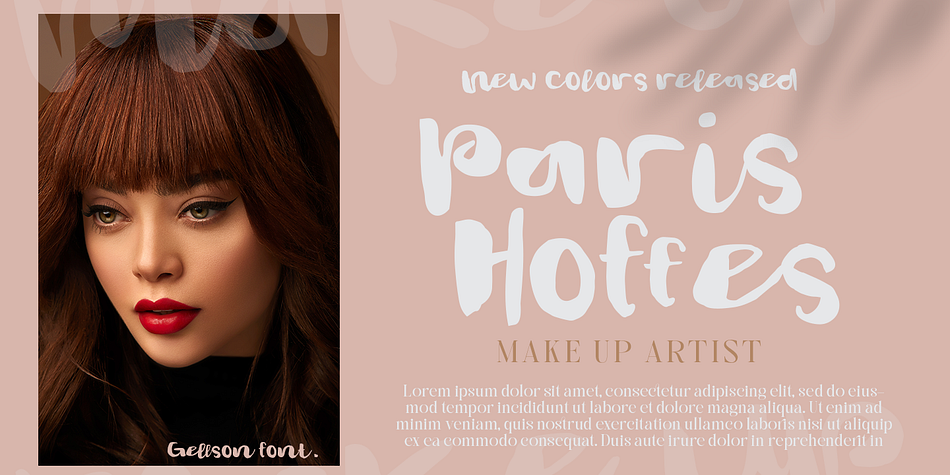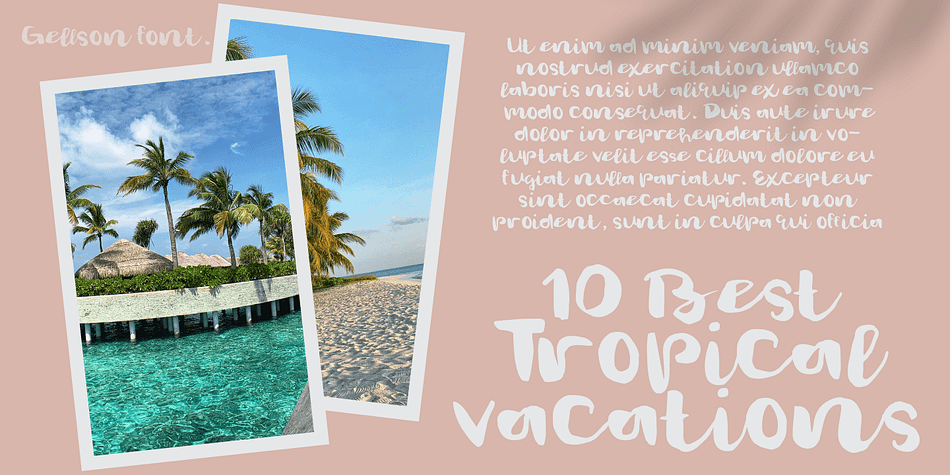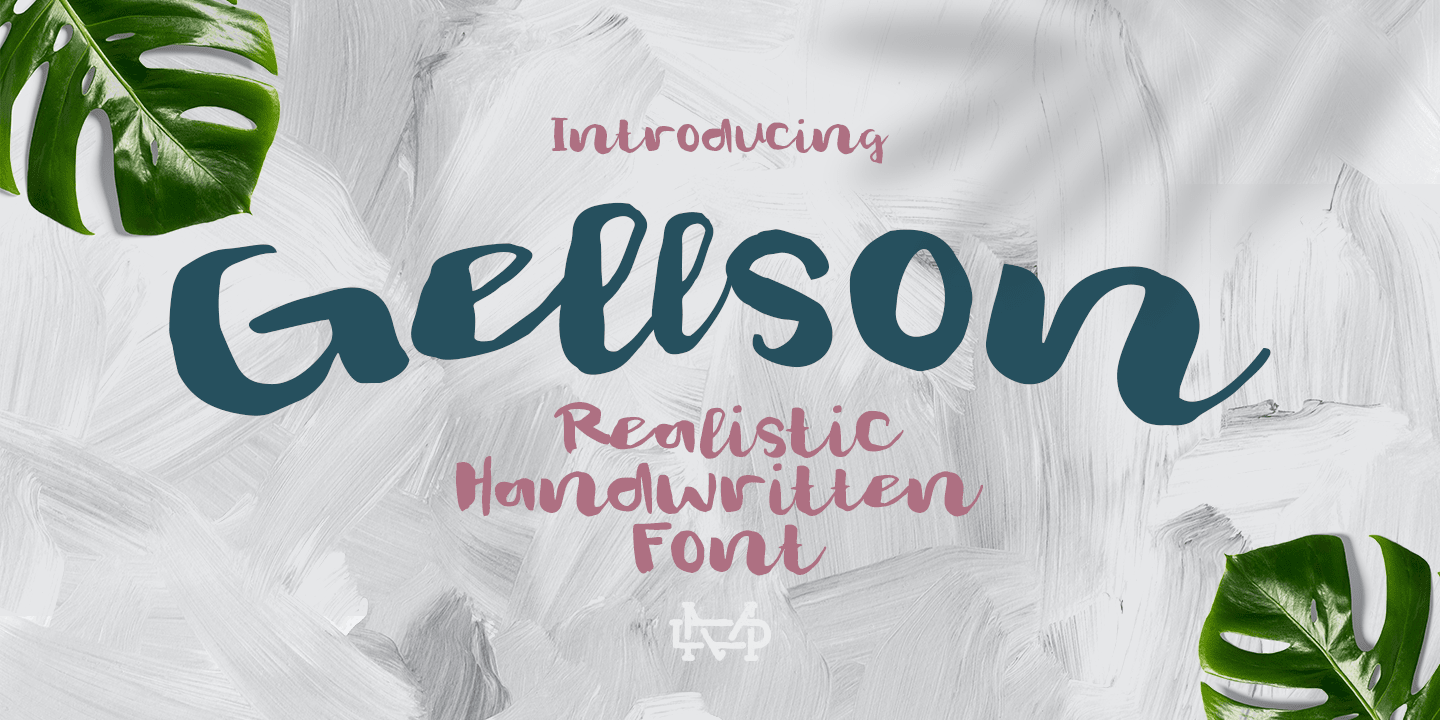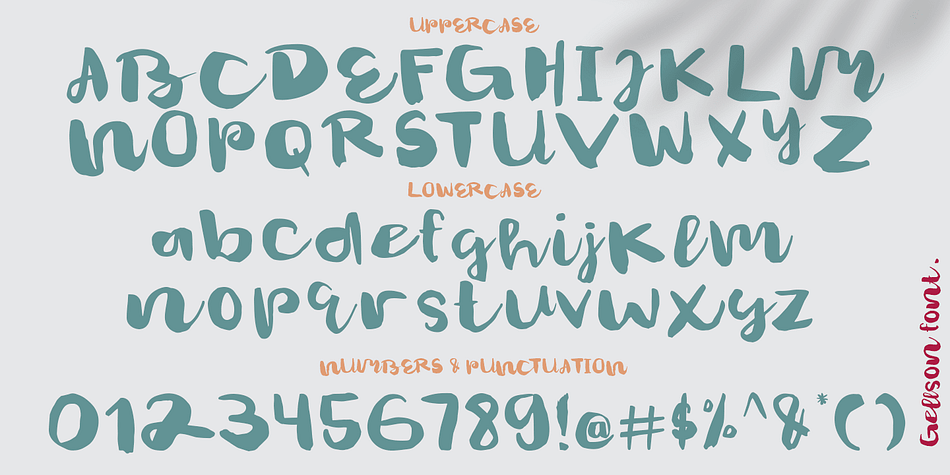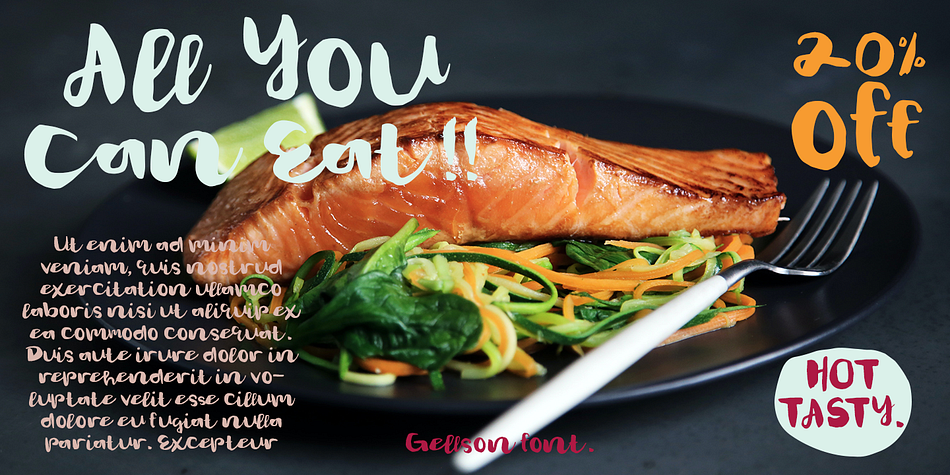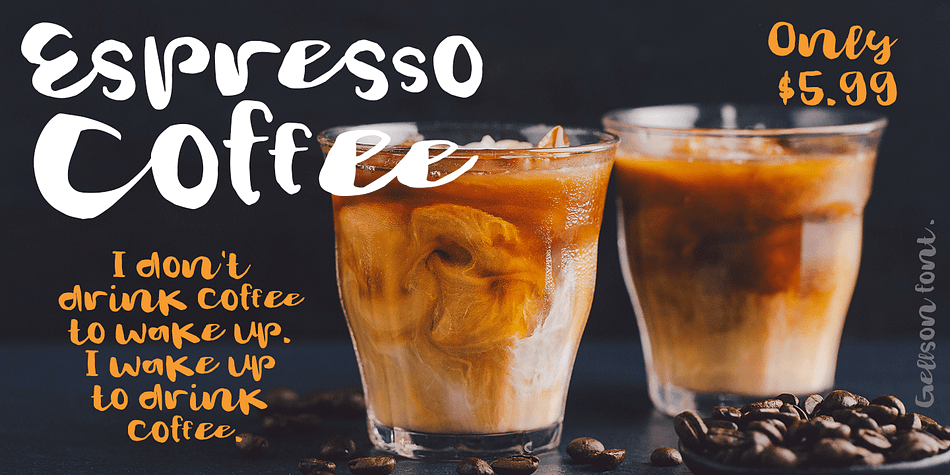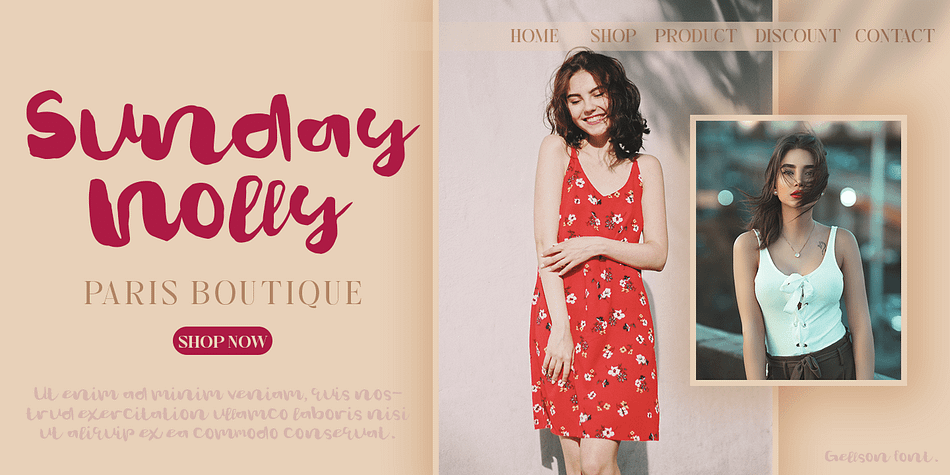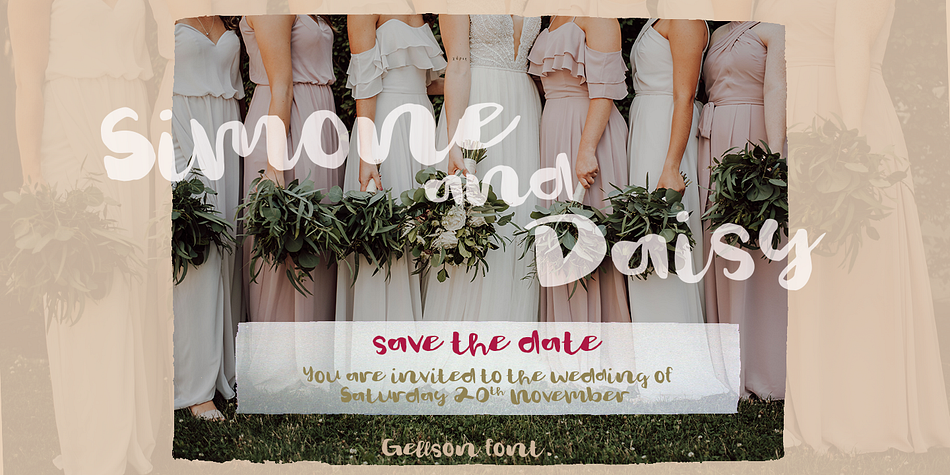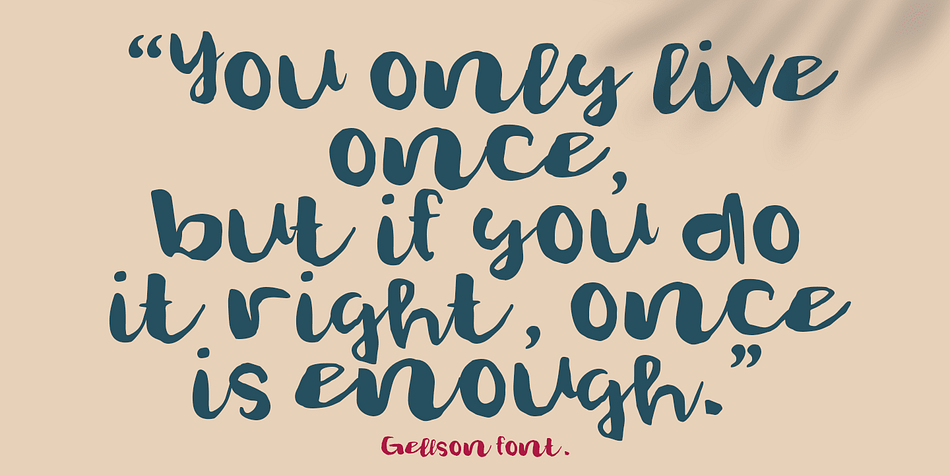
Gelsson
Designed by Suandana Ipandemade, Gelsson is a brush script and hand display font family published by madeDeduk.
Really excited to introduce Gelsson is a realistic brush script! Gelsson will be perfect for all your designs project.